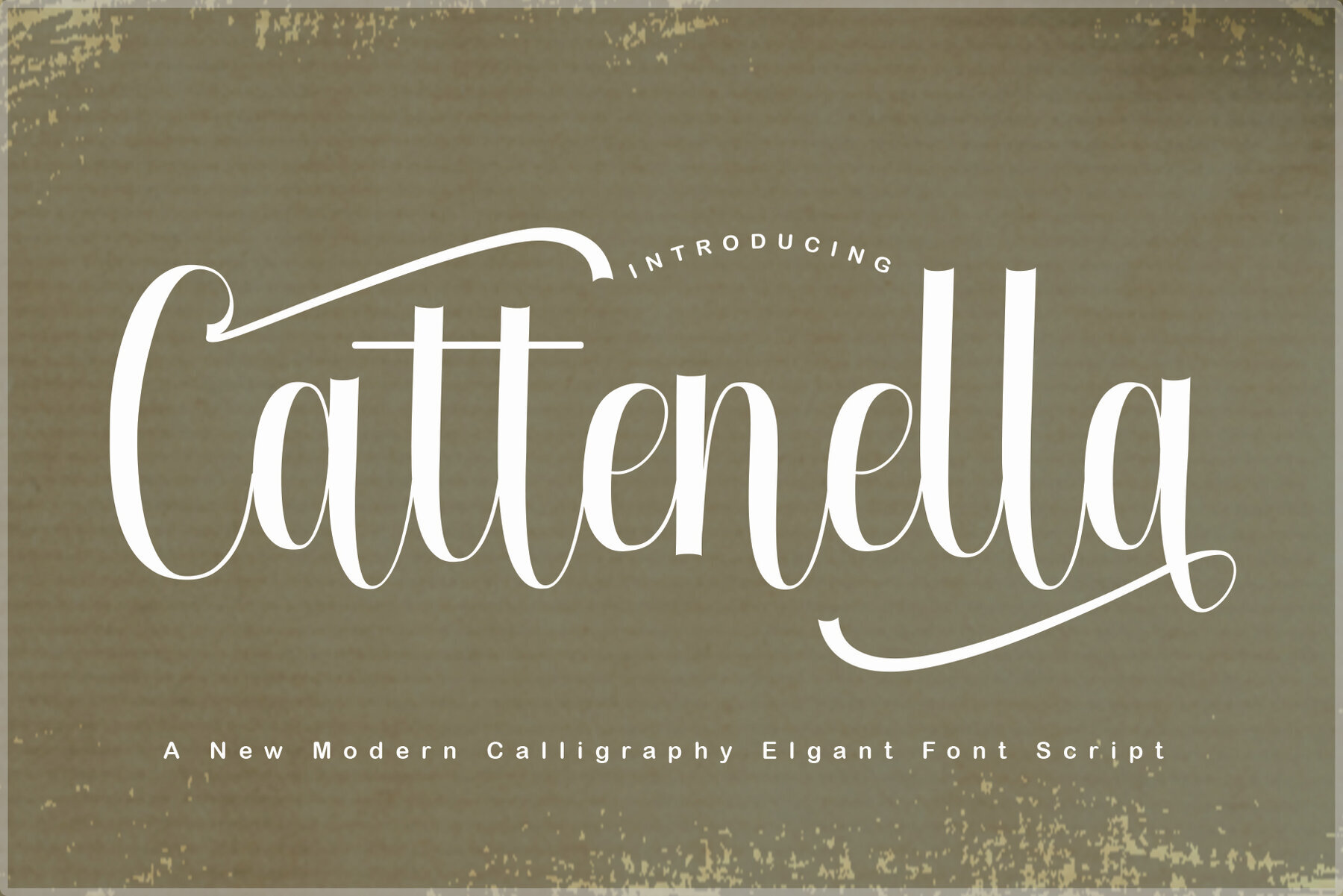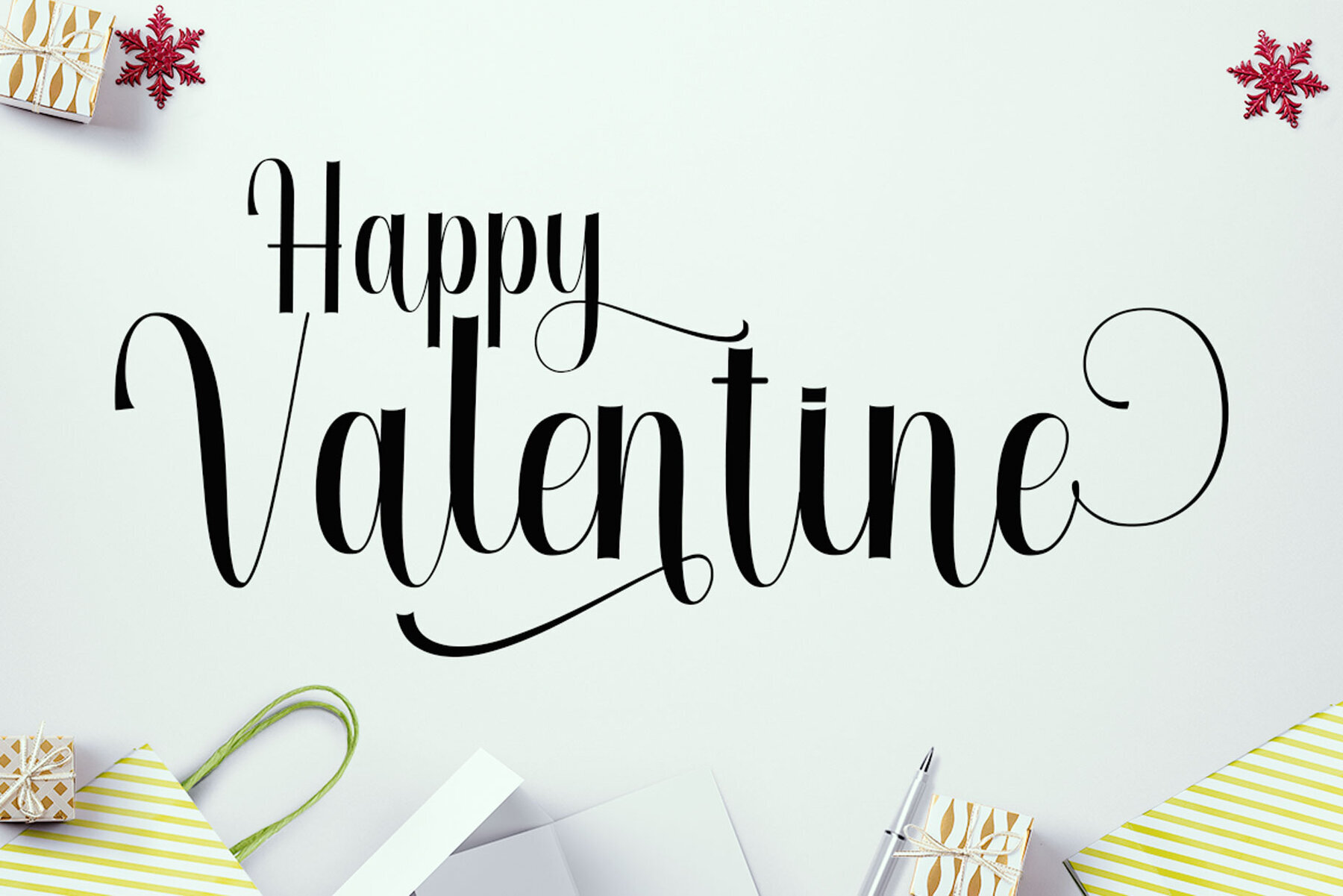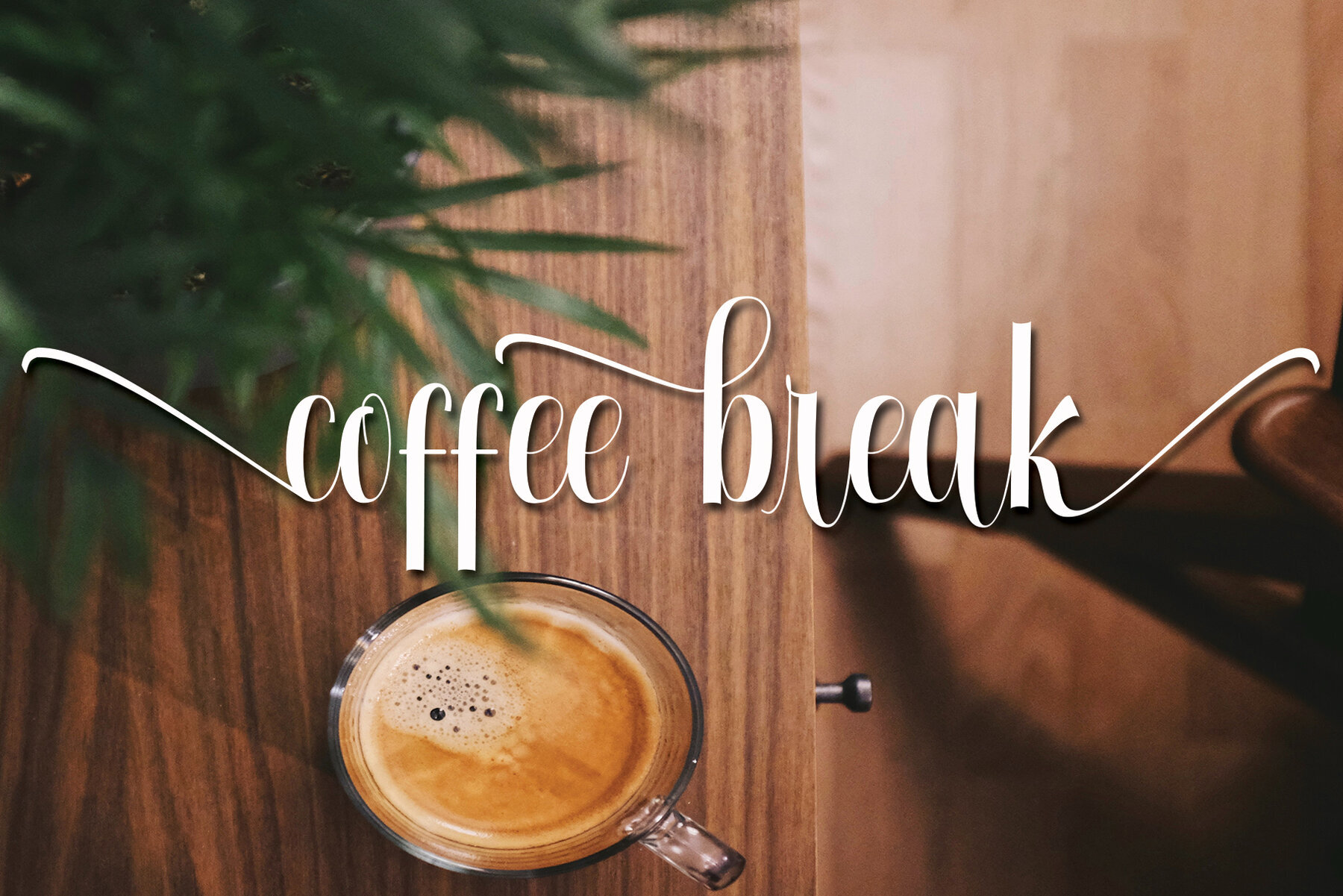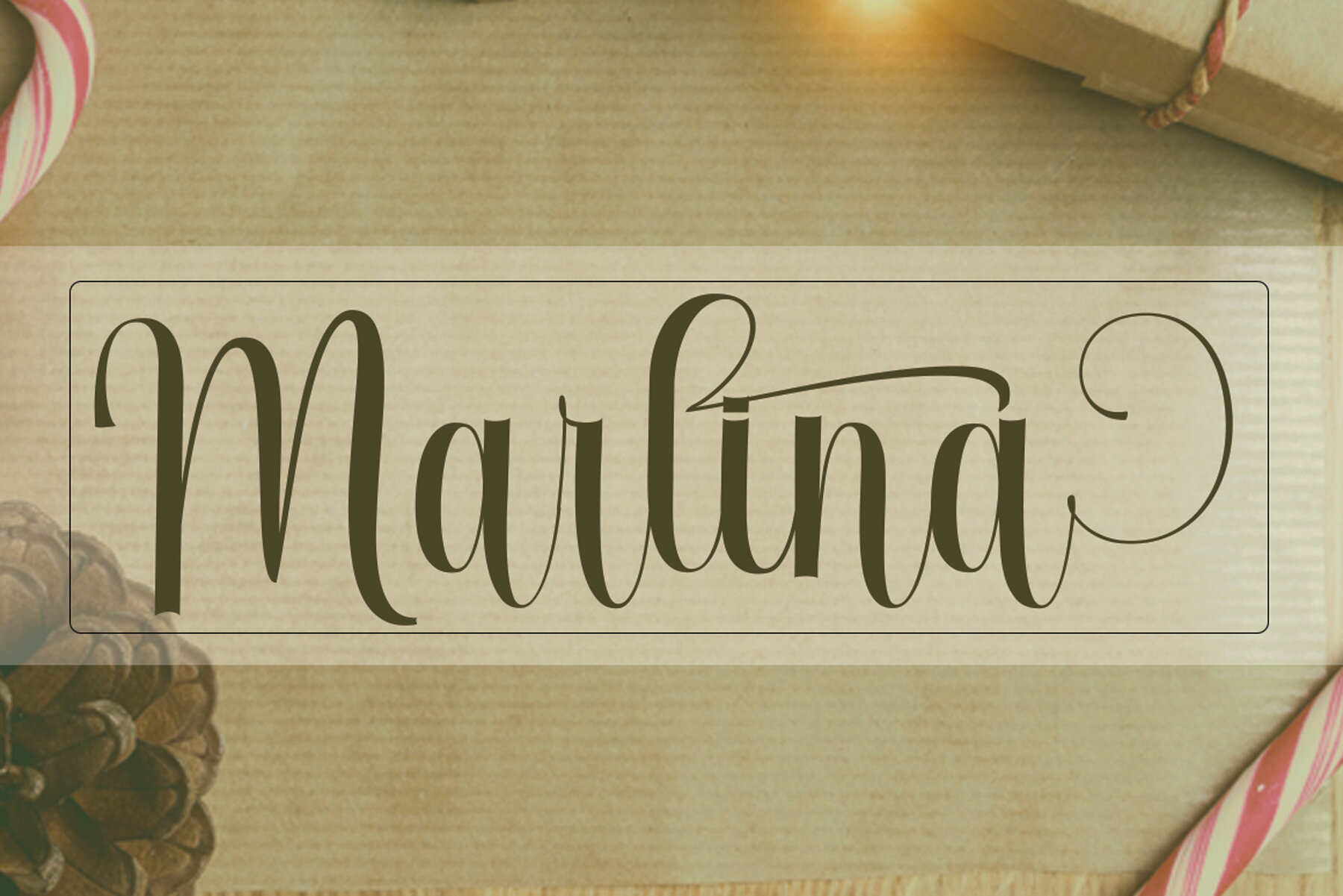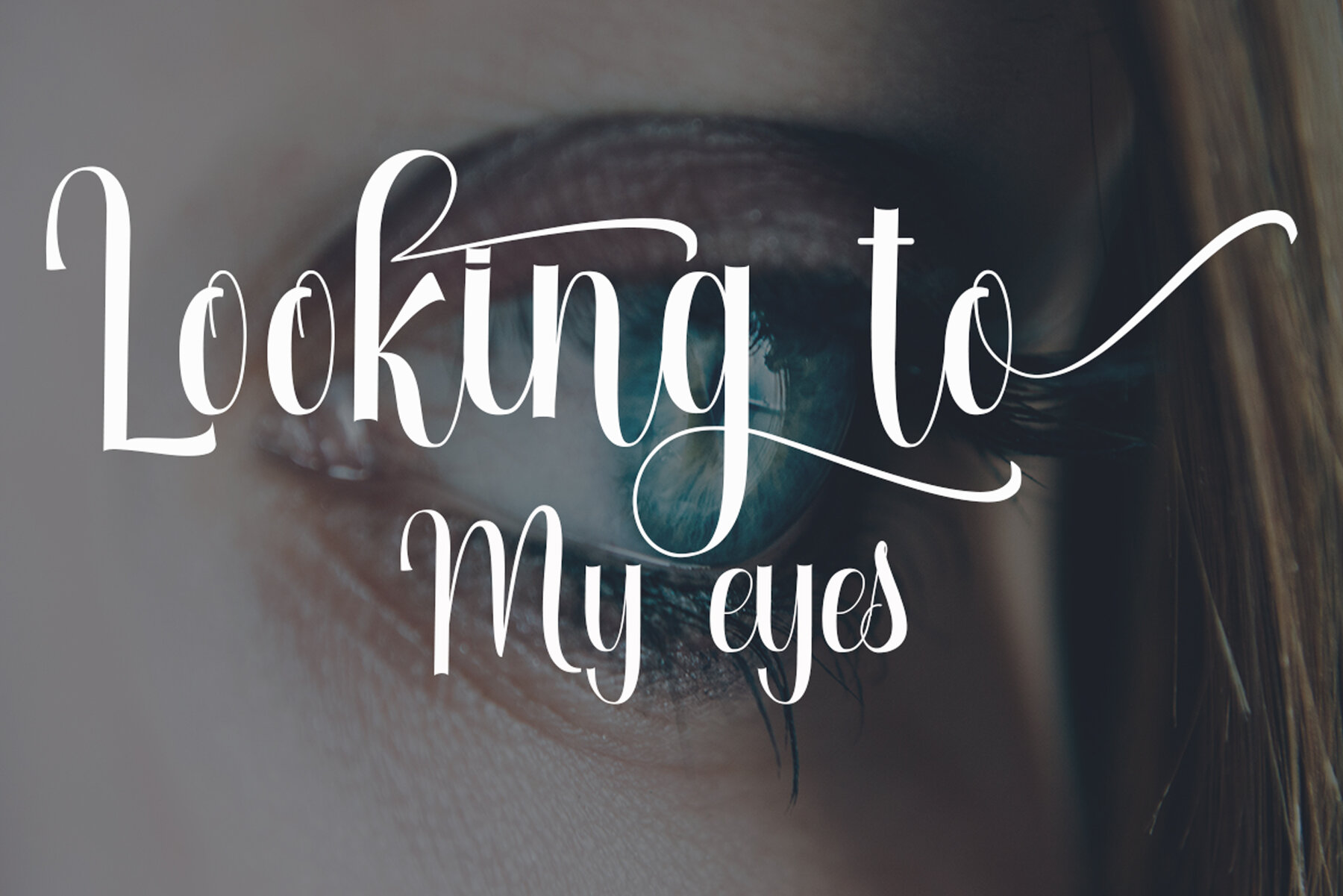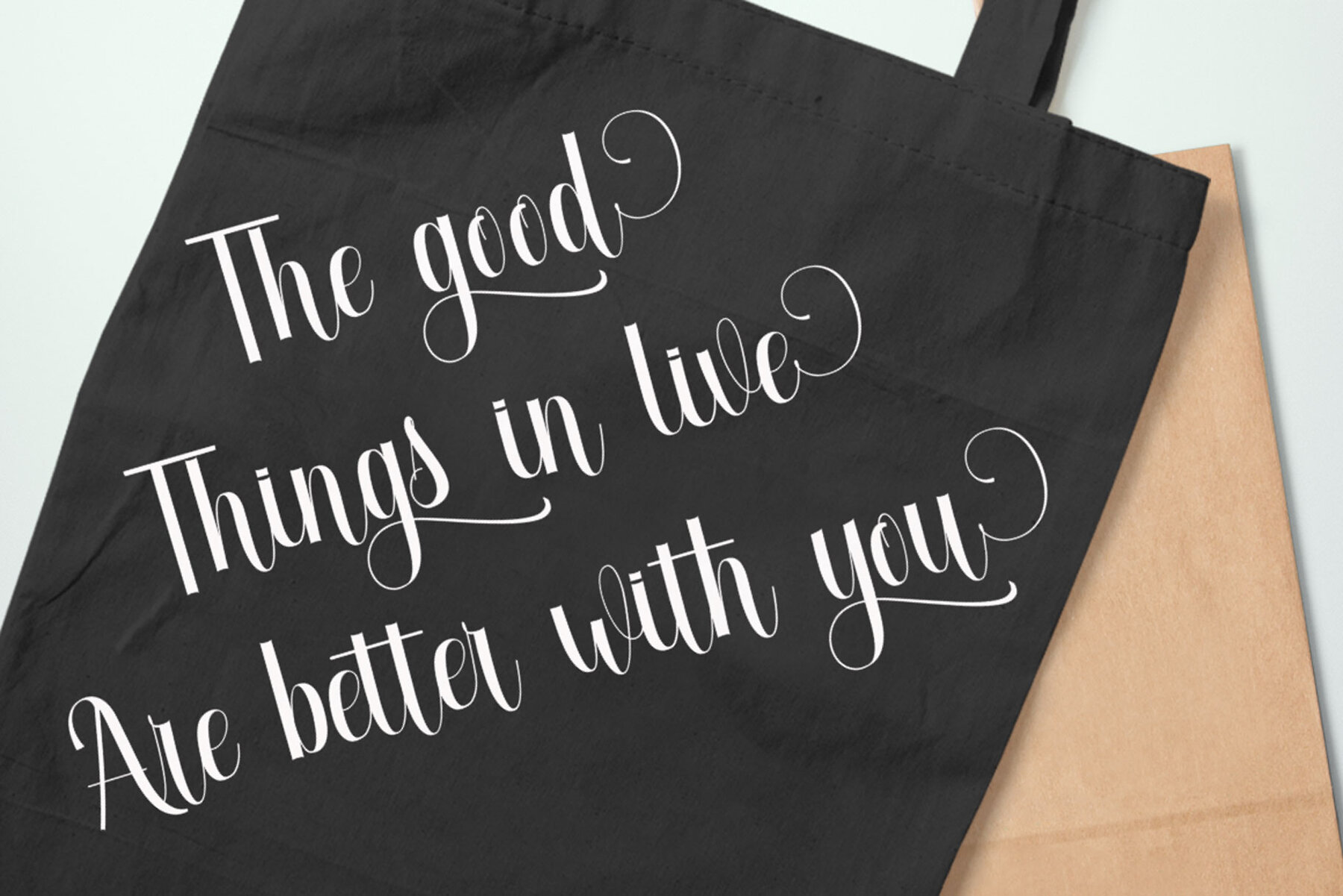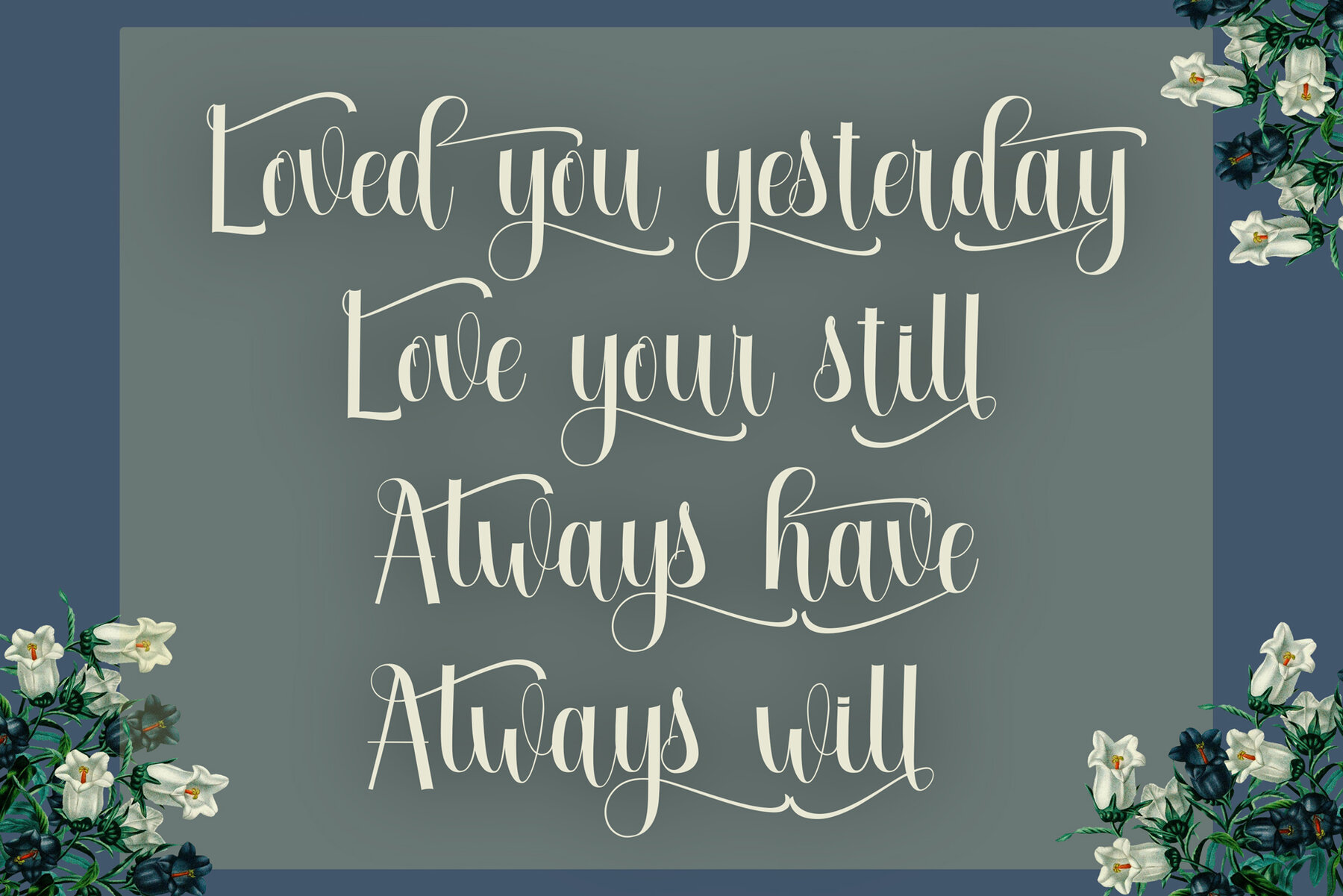
Cattenella Font
Cattenella Regular
Cattenella Script by Muhammad Nur is a sophisticated calligraphic font exemplifying a unique blend of regular script style with classic elegance. Its varied baselines and fine lines make it suitable for an array of applications, such as titles, signatures, logos, and wedding invitations. Whether you need it for t-shirts, letterheads, or promotional materials like posters and badges, Cattenella adds a touch of refinement. Additional Features: Cattenella Script is compatible with major design software including Adobe Photoshop, Illustrator, InDesign, Corel Draw, and Microsoft Office, further broadening its usability for designers engaged in diverse projects.Cattenella Script: Elegant Calligraphy with Versatile Uses